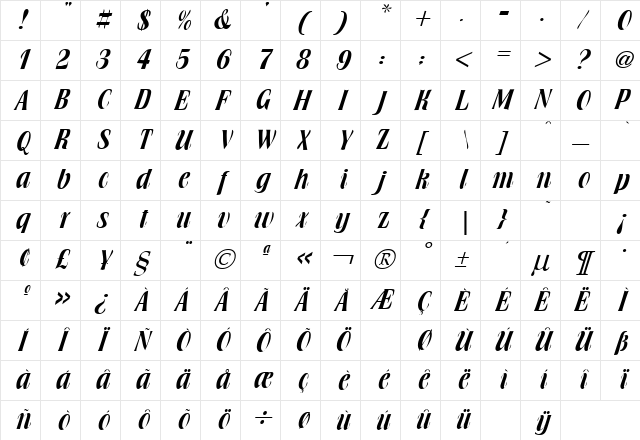
Book Jacket Regular
Book Jacket Family
Design Context for Book Jacket
Book Jacket is a composed and adaptable typeface that performs quietly and consistently across a wide range of design contexts.